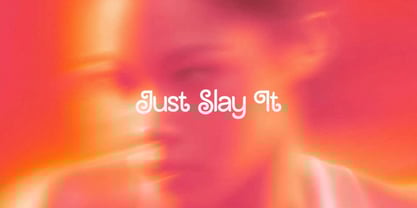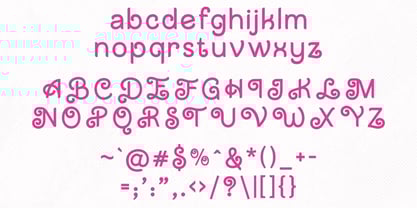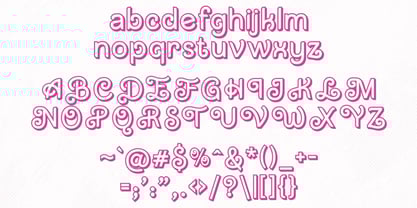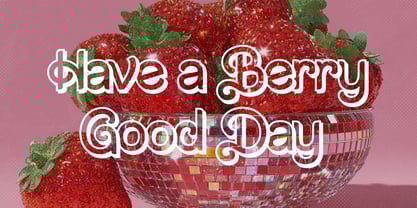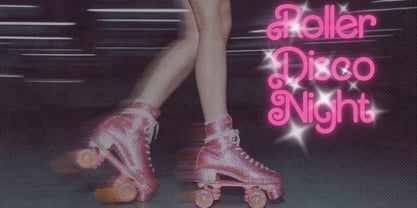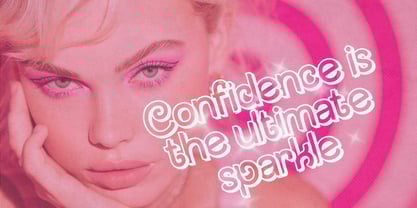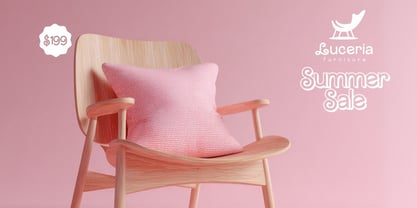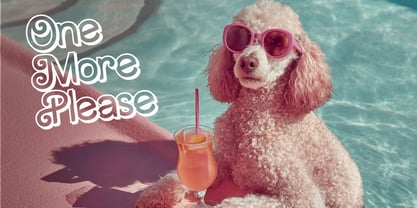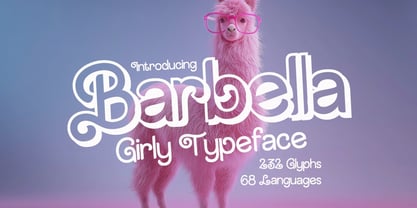
Barbella
by Hipfonts
The Barbella Font Family was designed by Igor Ovsyannykov and published by Hipfonts. Barbella contains 2 styles and family package options.
Step into a world of confidence, sparkle, and style with Barbella, a bold and fabulous typeface designed to steal the spotlight. With its chic curves, radiant personality, and unapologetically glamorous vibe, Barbella is made for projects that demand attention and radiate charm. Perfect for fashion branding, beauty packaging, event invitations, social media graphics, posters, and anything that needs a splash of dazzling energy, Barbella captures the essence of fun, femininity, and flair. It’s more than just a font,it’s a lifestyle statement. Whether you’re crafting eye-catching logos, trendy merch, or vibrant editorial layouts, Barbella adds that unmistakable wow factor your designs have been waiting for. Turn every word into a moment of glamour and watch your creativity shine.